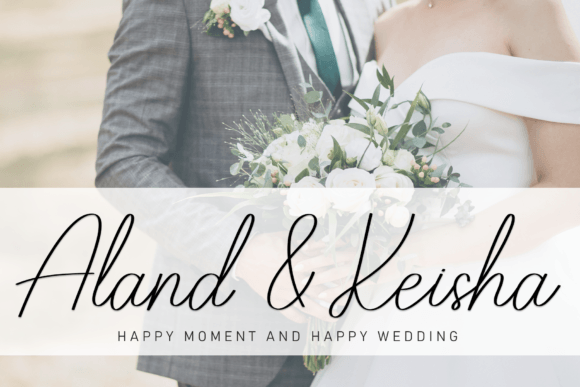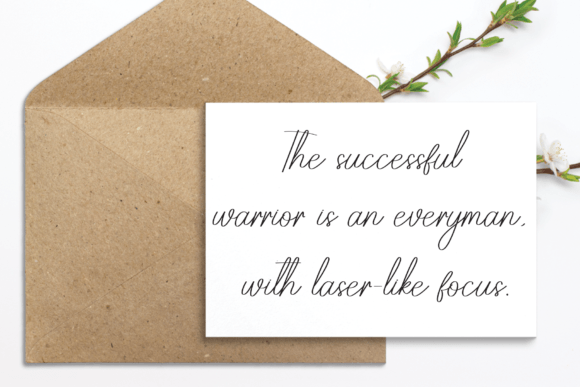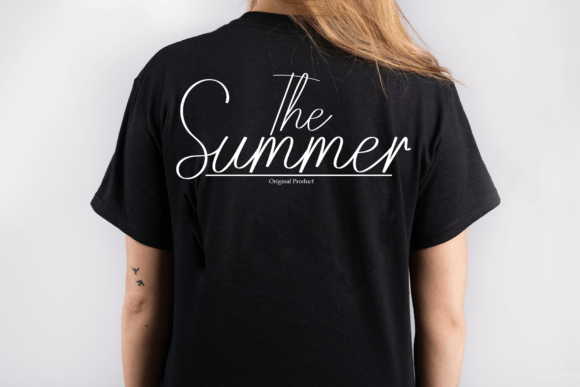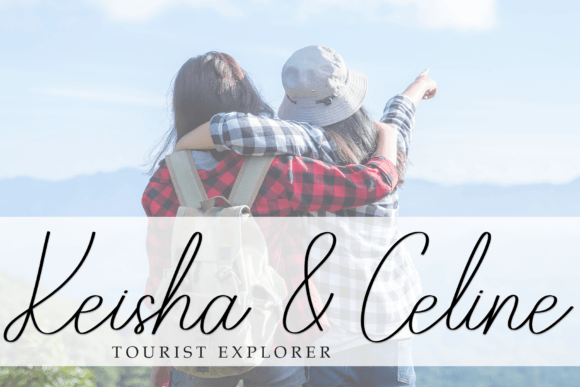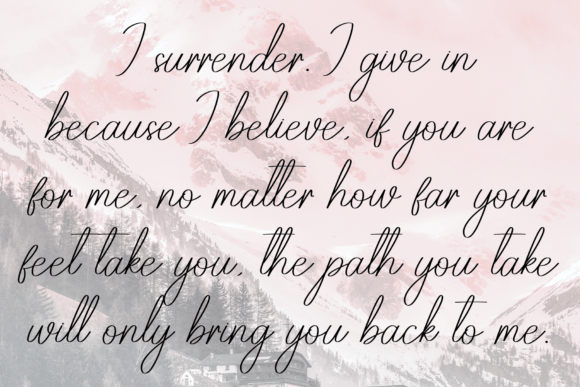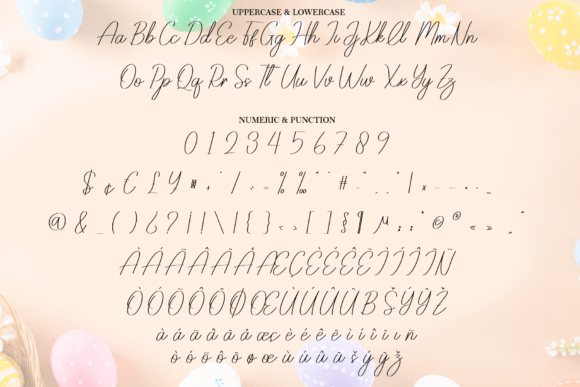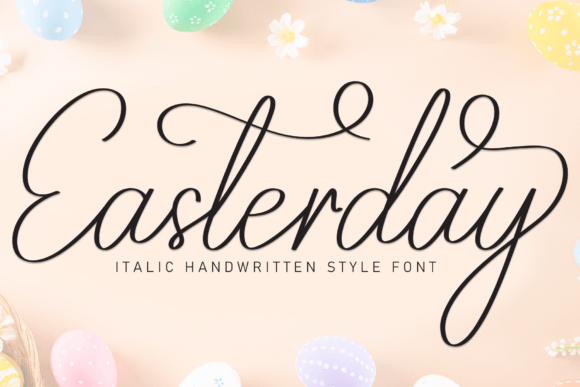
Easterday Font: The Sweet and Friendly Handwritten Font for Your Design Needs
Are you looking for a font that can add a lovely touch to your designs? Look no further than Easterday Font! Easterday is a sweet and friendly handwritten font that is perfect for creating beautiful wedding invitations, cards, and other designs that require a personal and casual touch.
What Makes Easterday Font Special?
Easterday Font is a fresh and casual font that is designed to bring a sense of warmth and friendliness to your designs. Its sweet and elegant handwritten style makes it ideal for a variety of design projects, from wedding invitations and cards to branding and packaging. The font is carefully crafted to ensure that it is easy to read and looks great in both digital and print formats.
Key Features of Easterday Font
- Sweet and Friendly Handwritten Style: Easterday Font features a beautiful handwritten style that is perfect for creating designs that require a personal touch.
- Fresh and Casual: The font has a fresh and casual feel that makes it ideal for a variety of design projects, from wedding invitations to branding and packaging.
- Elegant and Readable: Easterday Font is carefully crafted to ensure that it is easy to read and looks great in both digital and print formats.
- Perfect for Wedding Designs: The font is ideal for creating beautiful wedding invitations, cards, and other wedding-related designs.
How to Use Easterday Font in Your Designs
Easterday Font is a versatile font that can be used in a variety of design projects. Here are some ideas on how to use the font in your designs:
- Wedding Invitations: Use Easterday Font to create beautiful and elegant wedding invitations that will set the tone for the big day.
- Cards and Stationery: The font is perfect for creating lovely cards and stationery for special occasions, such as birthdays, anniversaries, and holidays.
- Branding and Packaging: Easterday Font can be used in branding and packaging designs to add a personal and friendly touch.
- Digital Designs: The font can be used in digital designs, such as social media graphics, blog posts, and email newsletters.
Why Designers and Crafters Love Easterday Font
Easterday Font has become a favorite among designers and crafters due to its unique and elegant handwritten style. Here are some reasons why:
- Unique and Personal: The font adds a unique and personal touch to designs, making them stand out from the crowd.
- Easy to Read: Easterday Font is carefully crafted to ensure that it is easy to read, making it perfect for designs that require a lot of text.
- Versatile: The font can be used in a variety of design projects, from wedding invitations to branding and packaging.
- High-Quality: Easterday Font is a high-quality font that is designed to deliver exceptional results in both digital and print formats.
Easterday Font is a sweet and friendly handwritten font that is perfect for designers and crafters who want to add a lovely touch to their designs. With its fresh and casual style, elegant and readable design, and versatility, Easterday Font is an excellent choice for a variety of design projects. Whether you’re creating wedding invitations, cards, or branding and packaging designs, Easterday Font is sure to deliver exceptional results.